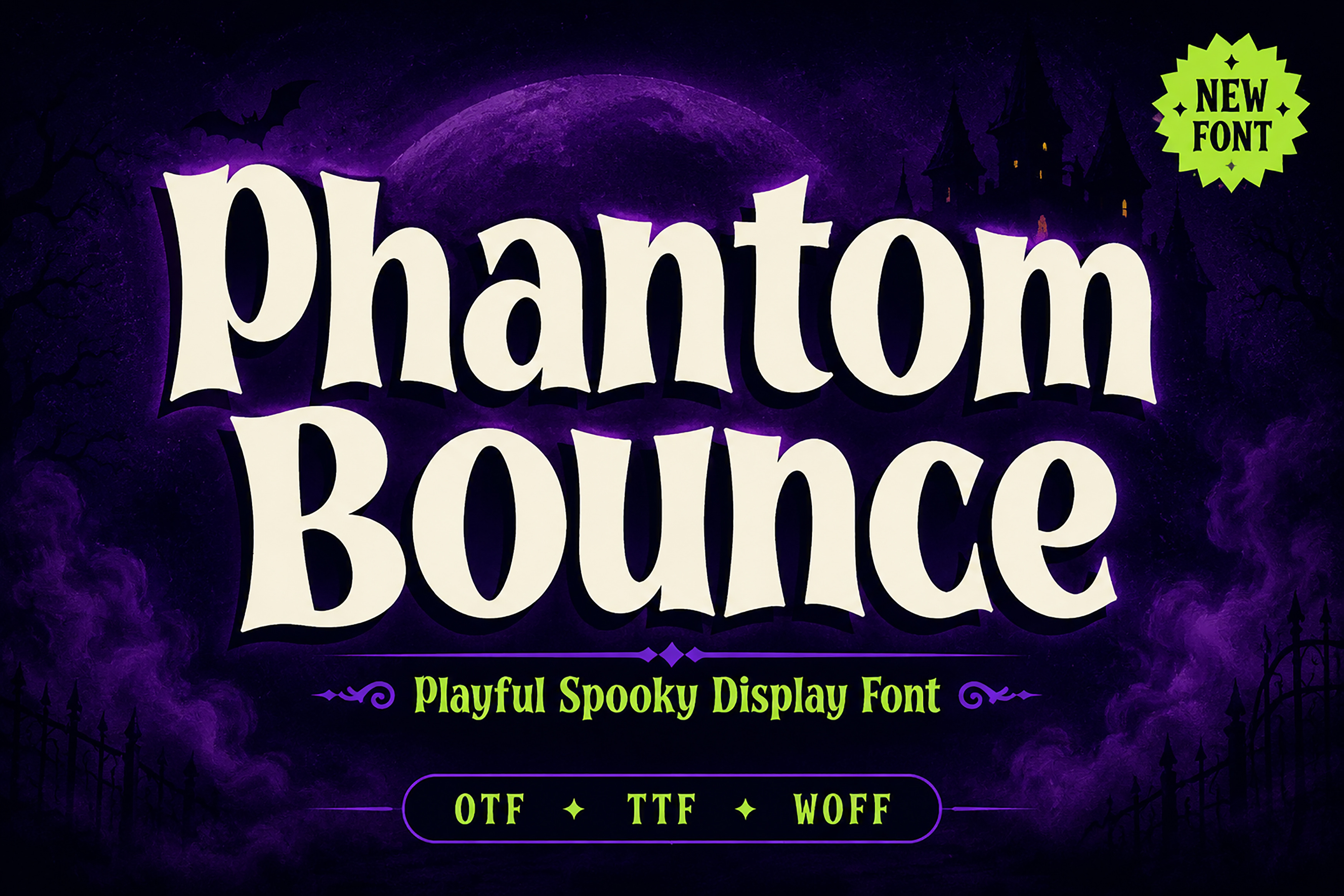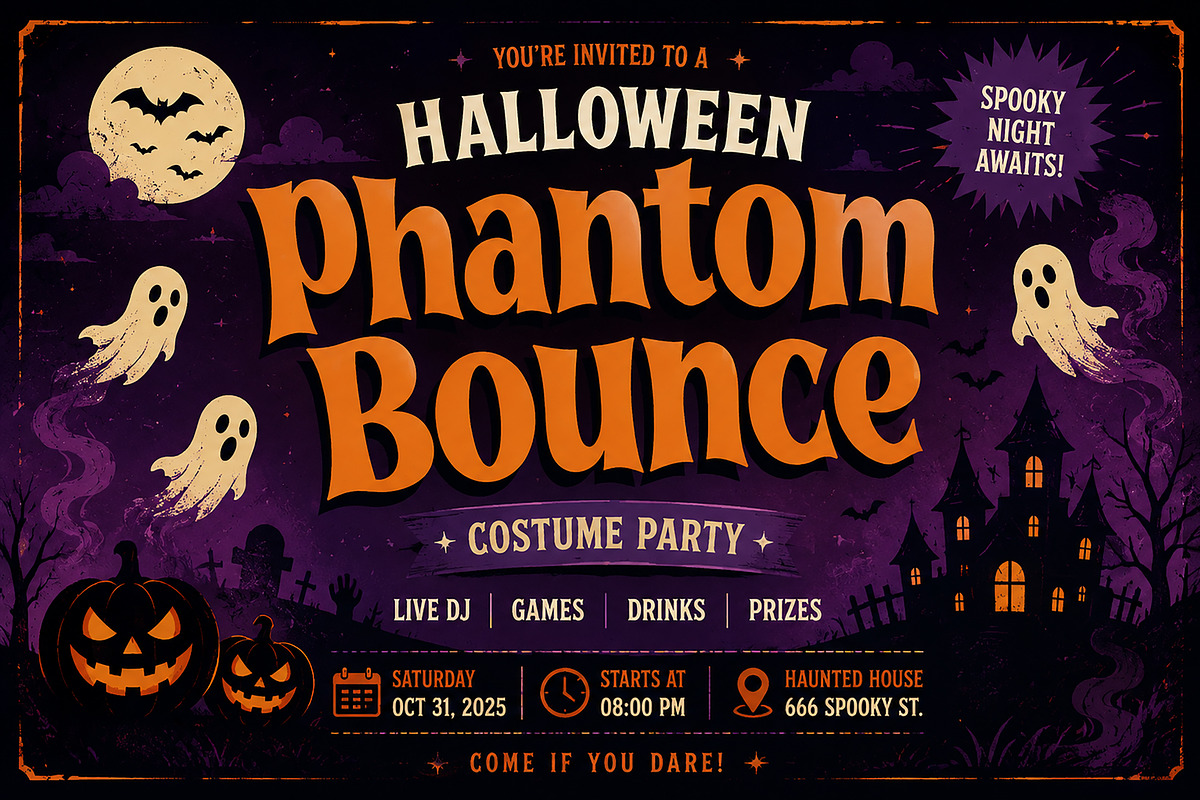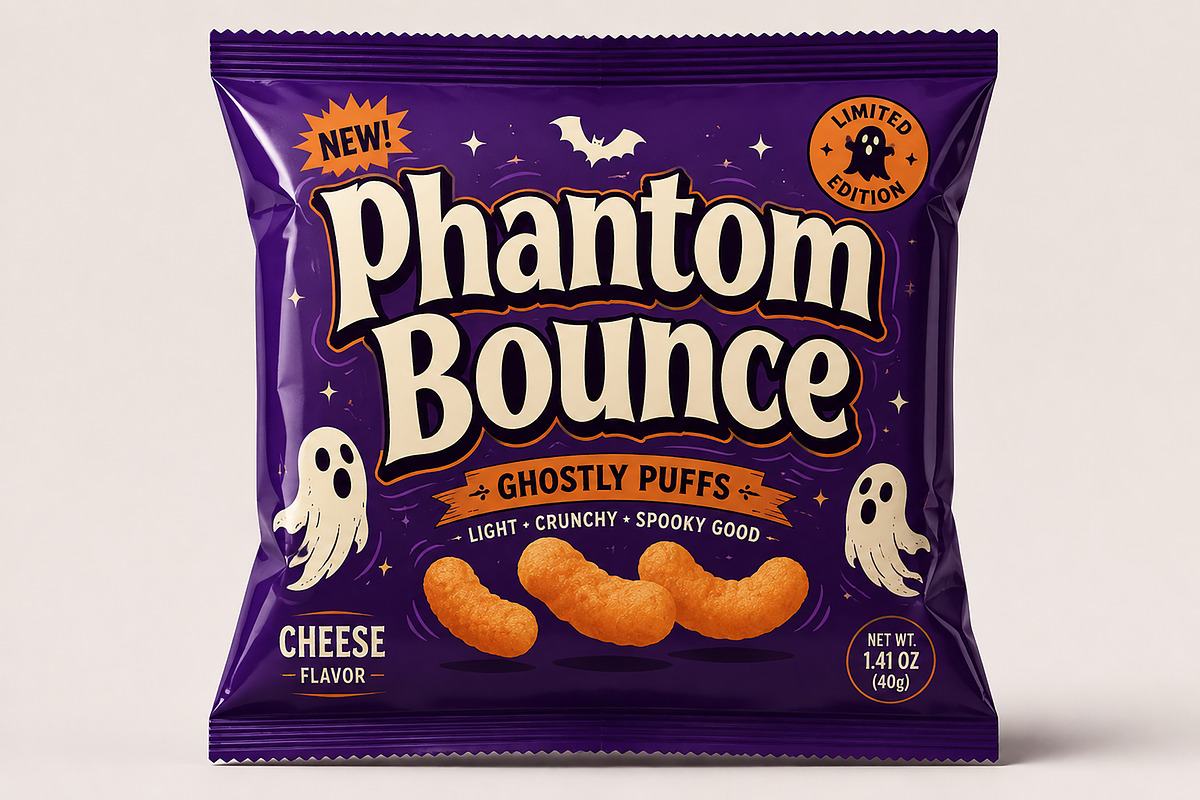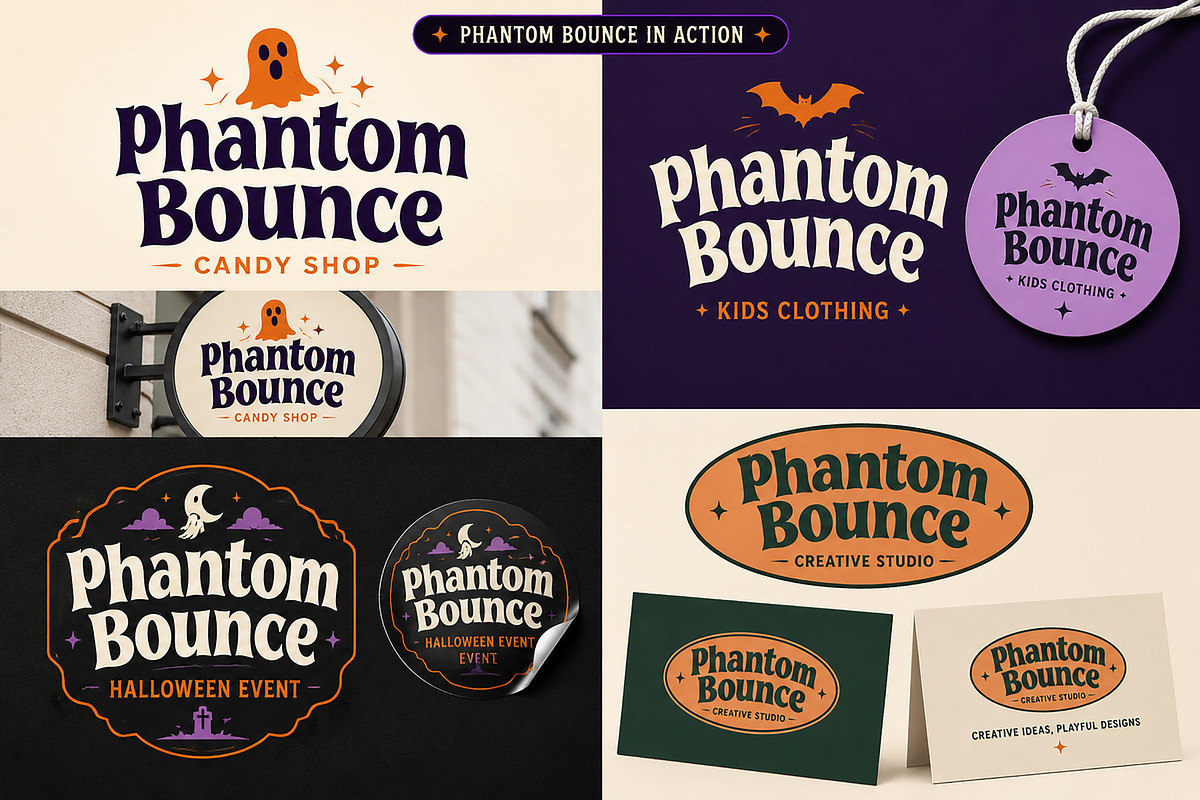
Phantom Bounce – Spooky Display Font
Phantom Bounce – Playful Spooky Display Font
Bring a playful spooky vibe to your creative projects with Phantom Bounce, a bold display font designed to grab attention. Featuring bouncy letterforms, quirky curves, and a fun Halloween-inspired personality, this font is perfect for creating eye-catching designs that stand out.
Whether you're designing seasonal promotions or playful branding, Phantom Bounce adds a unique handcrafted look with a modern retro twist.
Halloween Posters
Party Invitations
Event Flyers
Candy & Snack Packaging
Kids Products
Toy Branding
Comic Titles
Stickers
T-Shirt Designs
YouTube Thumbnails
Creative Branding
High-Quality Display Font